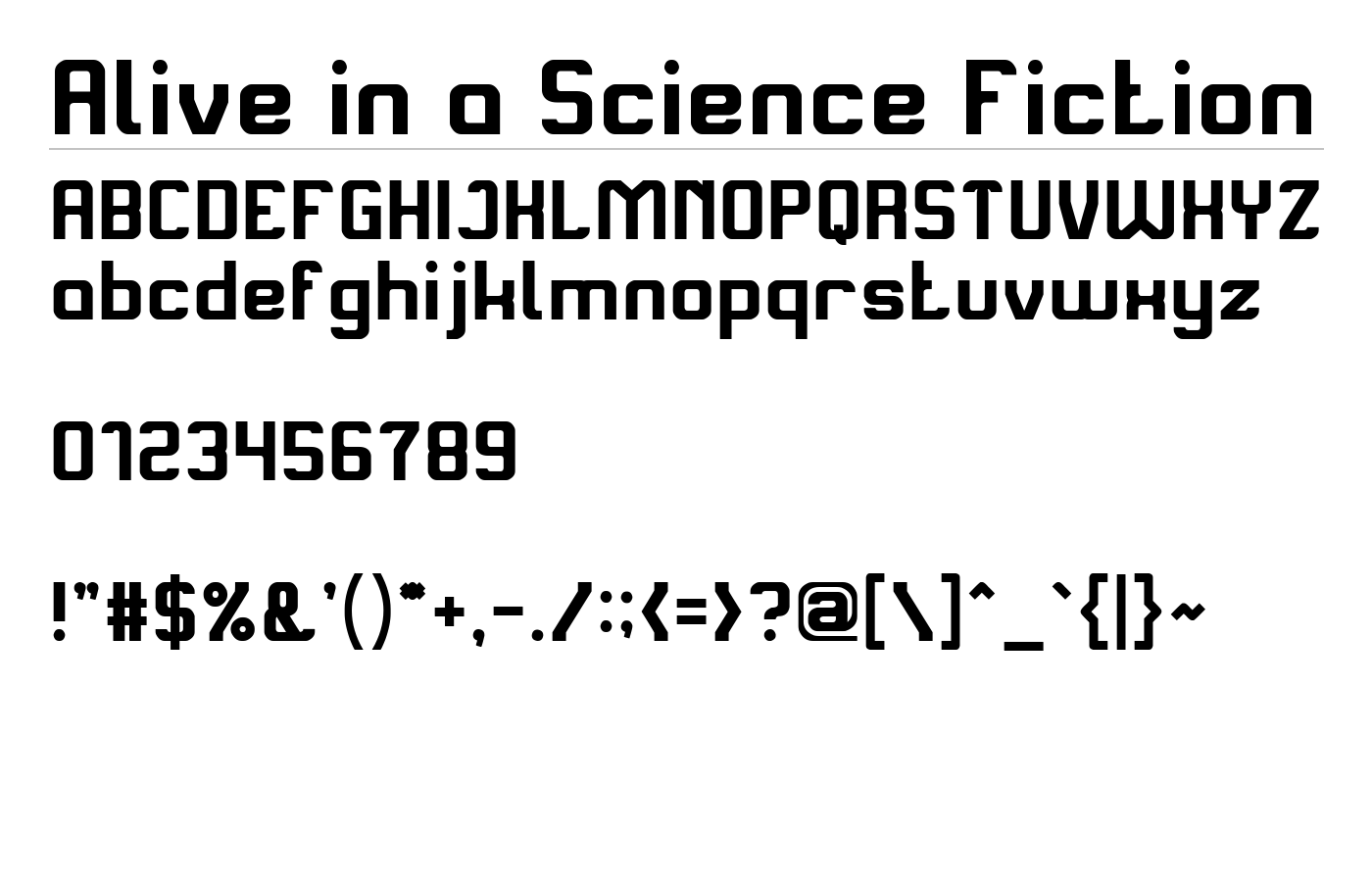
Alive in a Science Fiction Font is a bold, geometric sans serif typeface with a futuristic and technical feel. Its tall x-height, uniform stroke weight, and slightly condensed letterforms create a modern, clean impression perfect for sci-fi themes and tech branding. This font works well in headlines, posters, and digital media where a strong, innovative look is desired.
Alive in a Science Fiction Font
About Alive in a Science Fiction Font